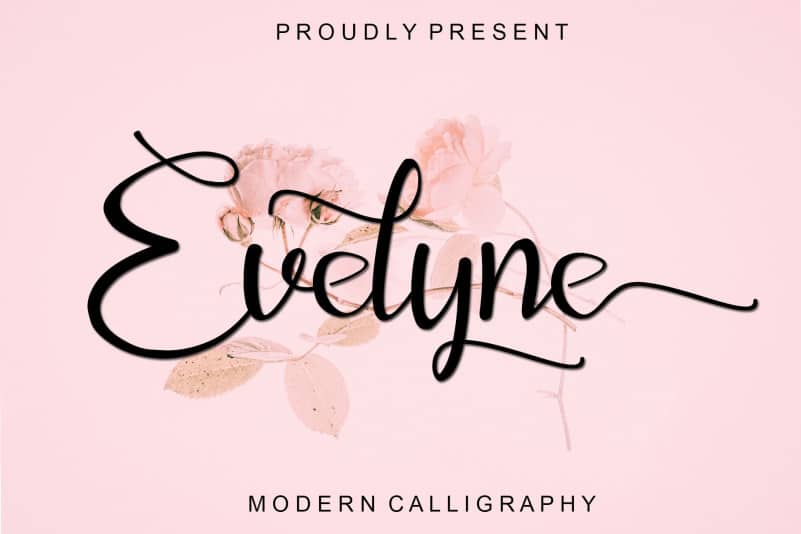
Evelyne Calligraphy Font
Evelyne Calligraphy Font is an exquisite handwritten typeface, masterfully designed to become a true favorite. It maintains its classy calligraphic influences while feeling contemporary and fresh. This font will add a feminine touch to make your design more soft and beautiful. This font is perfect for wedding invitation, quotes, branding, packaging, etc.